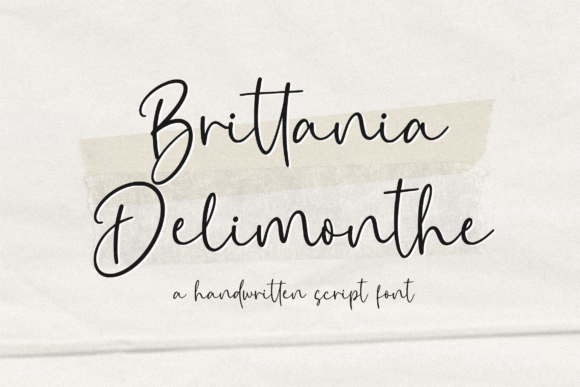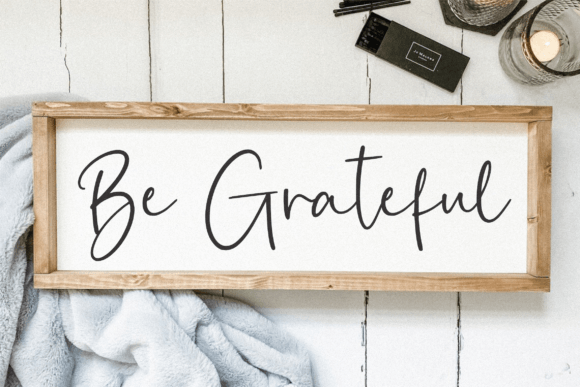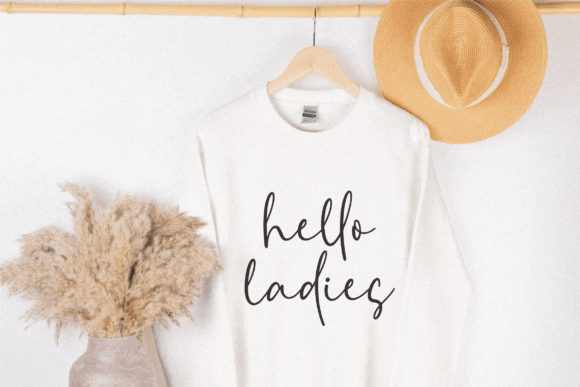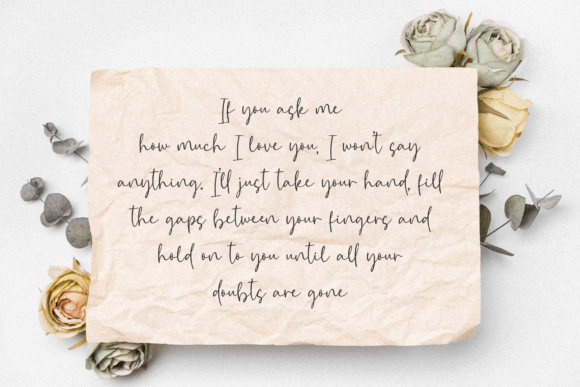
A Beautiful Handwritten Script Typeface
Brittania Delimonthe is a refined handwritten script font designed to bring elegance and warmth to your creative projects. Its smooth curves and balanced letters create a modern look while retaining the charm of hand-drawn calligraphy. Whether you’re designing product packaging, social media graphics, or wedding invitations, Brittania Delimonthe helps your work stand out with sophistication.
This font is perfect for adding a personal, premium feel to any design.
Brittania Delimonthe is a versatile font you’ll love to use over and over again. It’s ideal for wedding invitations, save-the-date cards, and thank you notes. The flowing script adds a romantic, heartfelt touch that makes every occasion feel extra special.
For branding, Brittania Delimonthe shines on logos, product labels, and business cards. Its handwritten style makes your brand feel approachable, professional, and memorable.
This font is also perfect for product packaging in industries like cosmetics, gourmet foods, or handmade goods. The elegant look makes products feel high-end and carefully crafted.
On social media, Brittania Delimonthe keeps your visuals cohesive and stylish. Whether you’re promoting products, sharing quotes, or announcing special events, this font ensures your posts look polished and engaging.
Even with its decorative flourishes, Brittania Delimonthe remains clear and legible in any size. The smooth connections between letters and balanced spacing keep your text neat and easy to read in both large headlines and smaller captions.
For a clean, modern design, pair Brittania Delimonthe with a minimalist sans-serif font. Use Brittania Delimonthe for main titles and highlighted text, and the sans-serif for supporting details. This combination feels fresh and organized while showcasing the beauty of the script.
To make Brittania Delimonthe shine, use light backgrounds and soft color palettes. Shades like blush pink, ivory, and warm gray help the font stand out without overwhelming your design.
When creating invitations or packaging, consider adding subtle illustrations or decorative borders that complement the handwritten style.
On social media, embrace white space to keep your posts clean and your text easy to read.
Think about the feeling you want to convey. Brittania Delimonthe is perfect for projects that should feel romantic, elegant, and timeless.
Brittania Delimonthe isn’t just another script font—it’s a creative asset that elevates every design with grace and character. From professional branding to personal keepsakes, this font adapts easily to any project and adds a polished touch to your work.